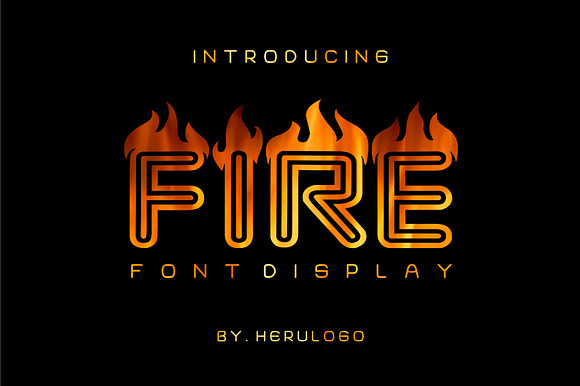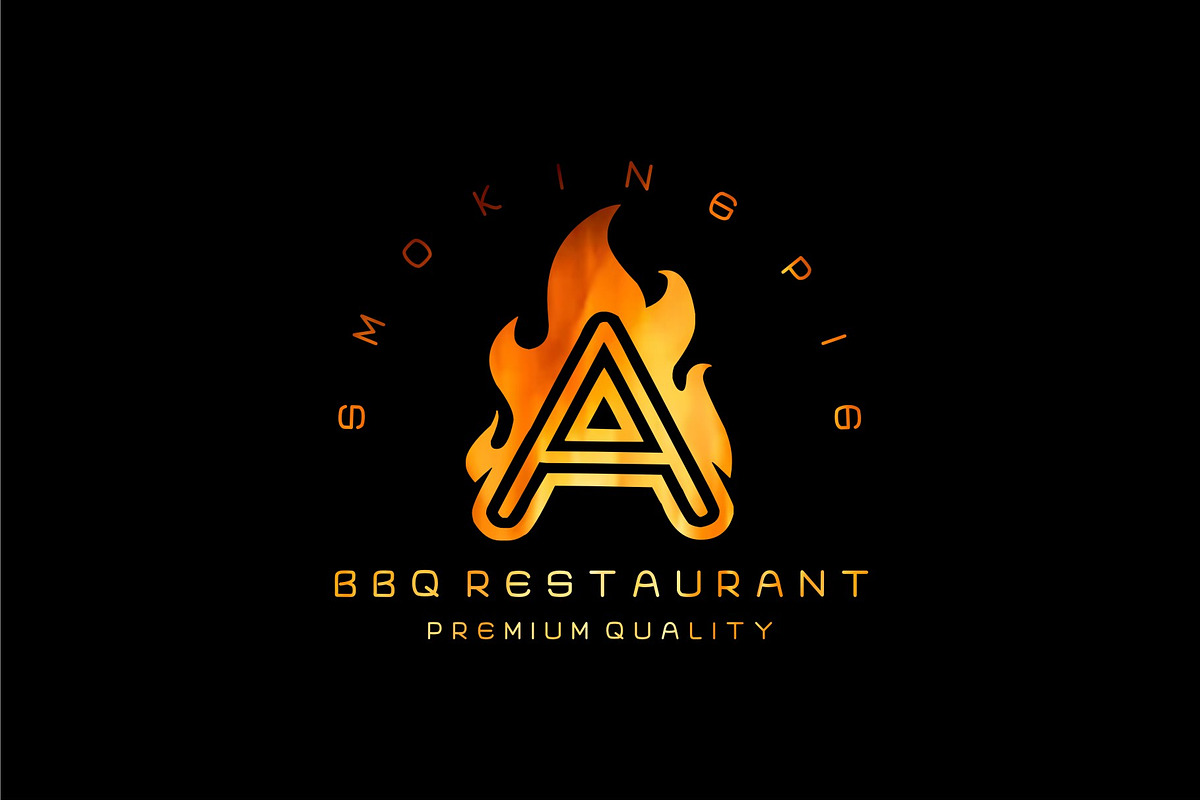
FIRE display Font
Amazing display font using FLAMES/FIRE very good font for BBQ / RESTAURANT / Food company
Why FIRE display Font is worth a look
FIRE display Font by herulogo fits naturally into Branding, posters, packaging, typography.